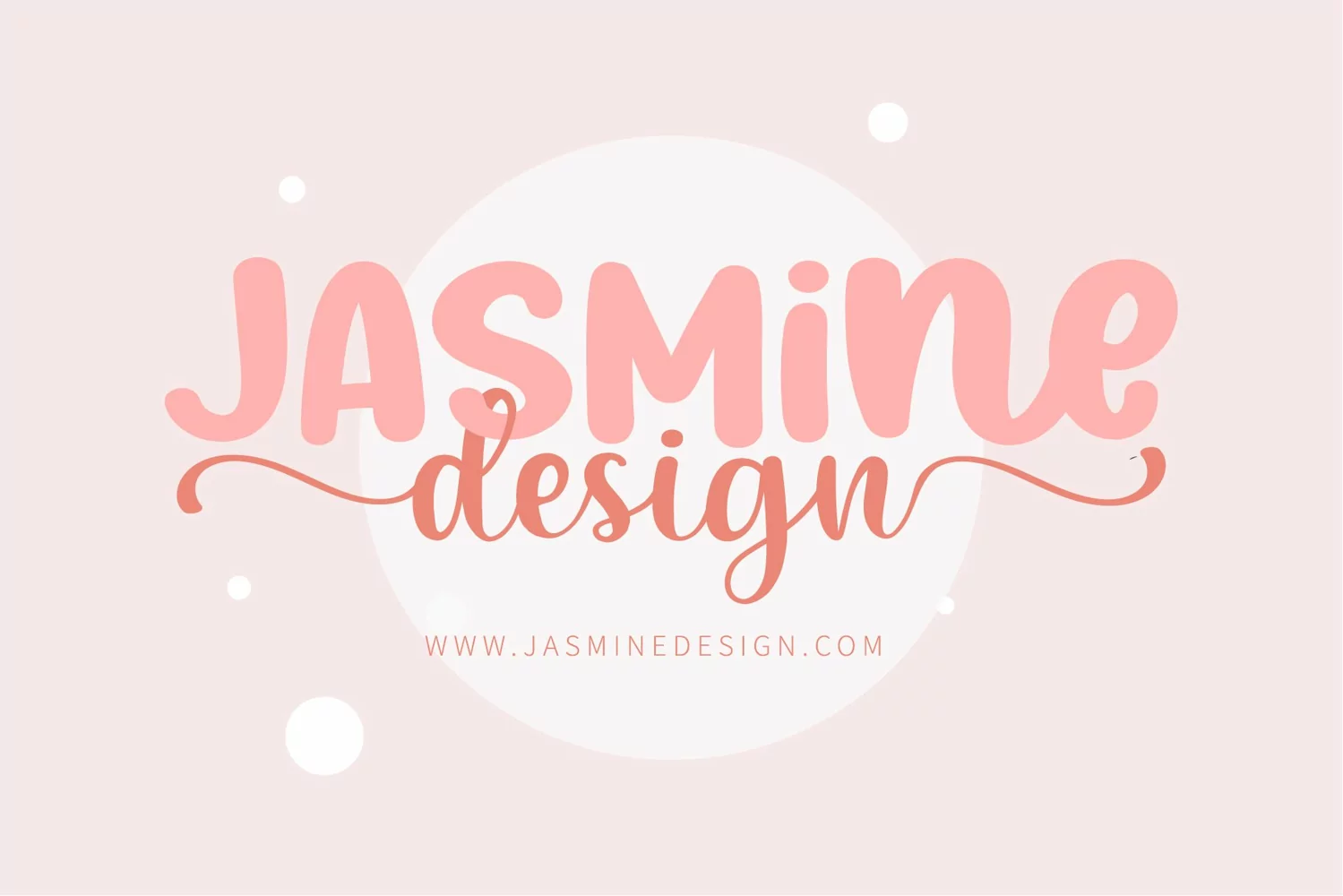
Hello Sunshine - A perfect pair font duo
Hello Sunshine is a duo-styled handwritten font that feels equally charming and delicate. This font is PUA encoded which means you can access all of the glyphs and swashes with ease! Hello Sunshine will turn any creative idea into a standout!
• Alternate swashes letter (begin, end and heart connect)
• PUA Encoded Characters
• Standard glyphs, Basic Latin Unicode: standard English number and basic punctuation